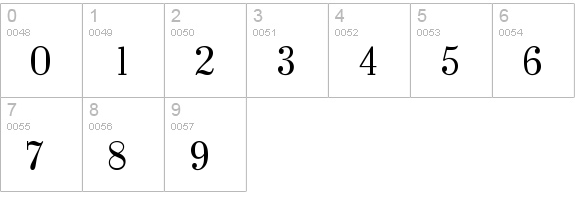
Wichita-Regular is the standard, neutral variant in the Wichita typeface family \xE2\x80\x94 well suited to general body text, paragraphs, and standard typographic work.
Wichita-Regular is a versatile and stylish font that is sure to make a lasting impression. Its clean lines and elegant curves give it a modern yet timeless appeal, making it perfect for a wide range of design projects. But what makes Wichita-Regular even more appealing is that it is available for free! That's right, this fantastic font can be downloaded without any cost at FontsMarket.com. So whether you're a professional designer looking to add a touch of sophistication to your work, or an amateur enthusiast looking to spruce up your personal projects, Wichita-Regular is the ideal choice. With its wide range of glyphs and characters, Wichita-Regular offers endless possibilities. From sleek logos and branding materials to eye-catching headlines and captivating typography, this font is sure to elevate any design to the next level. The versatility of Wichita-Regular extends beyond just its aesthetic appeal. Its legibility and readability ensure that your message is conveyed effortlessly, whether it's in print or on a digital platform. With its well-balanced letterforms and carefully crafted spacing, this font guarantees a smooth and enjoyable reading experience. So why wait? Enhance your design projects with Wichita-Regular today! Download this remarkable font for free at FontsMarket.com and unlock a world of creative possibilities. Whether you're designing for personal use or professional projects, Wichita-Regular is here to help you leave a lasting impression.